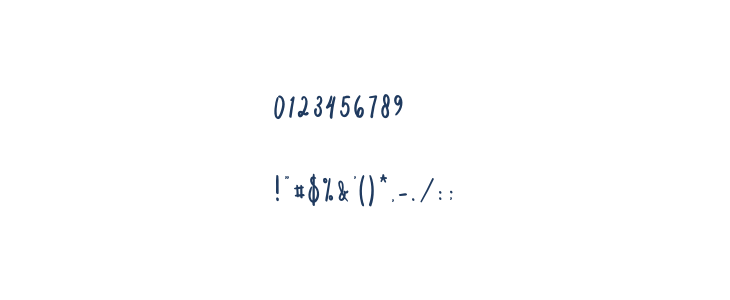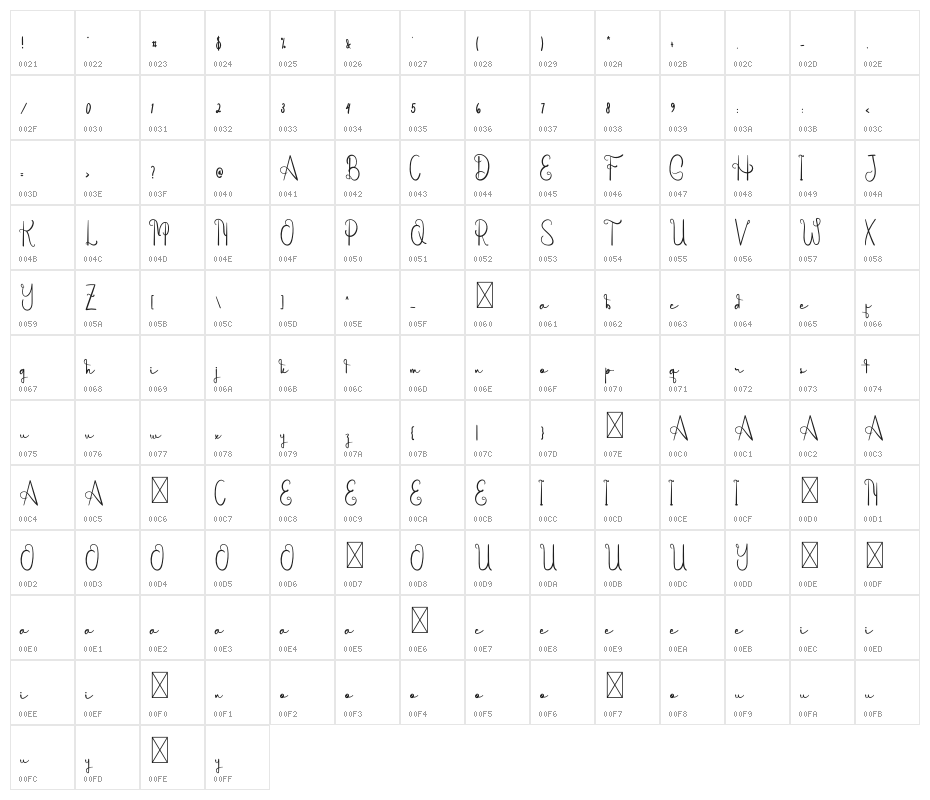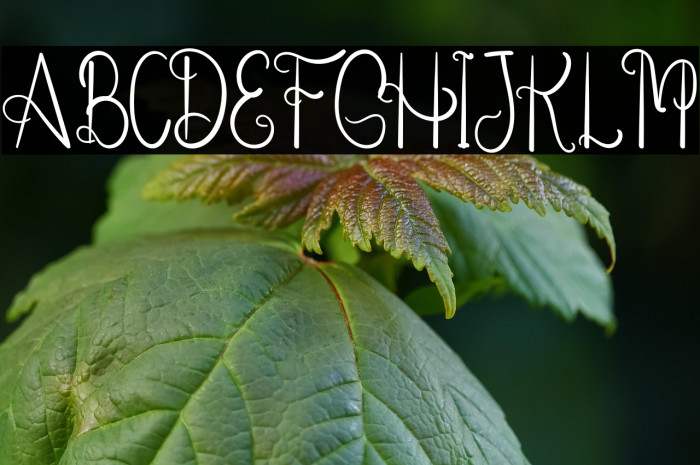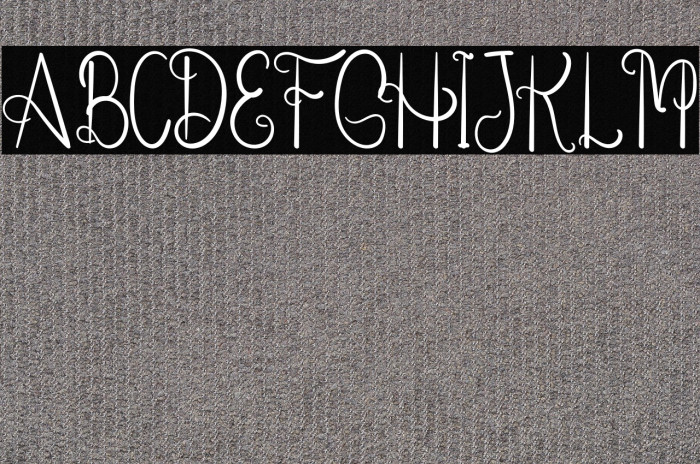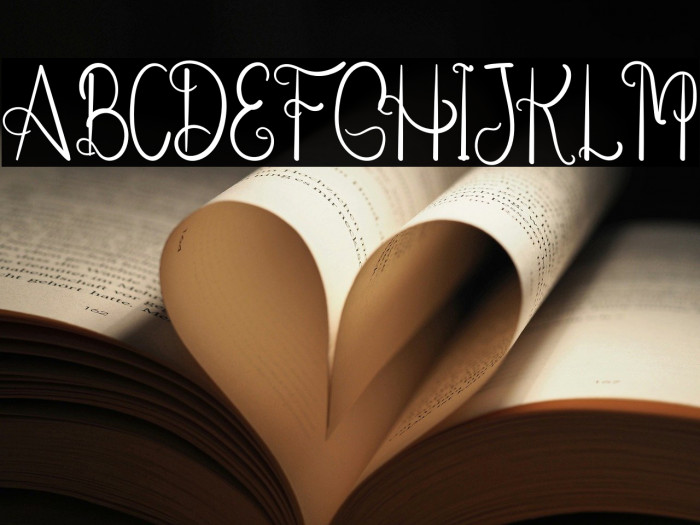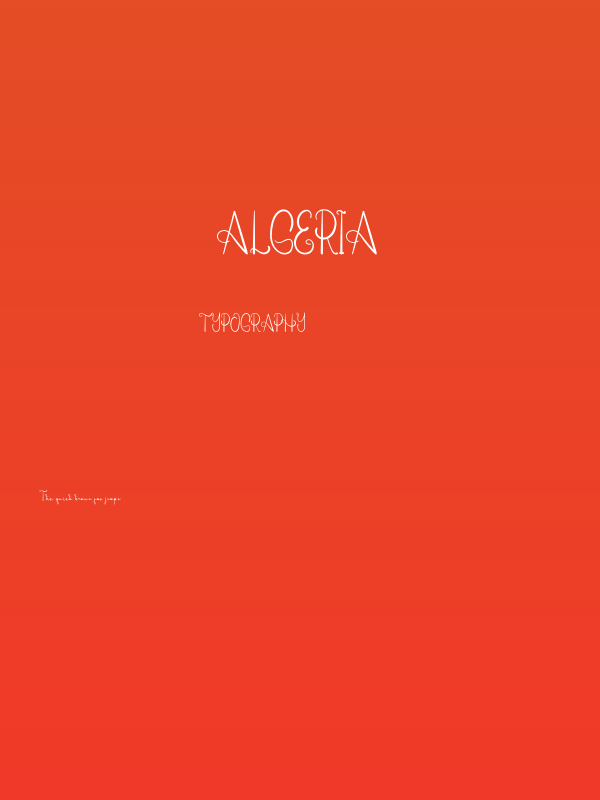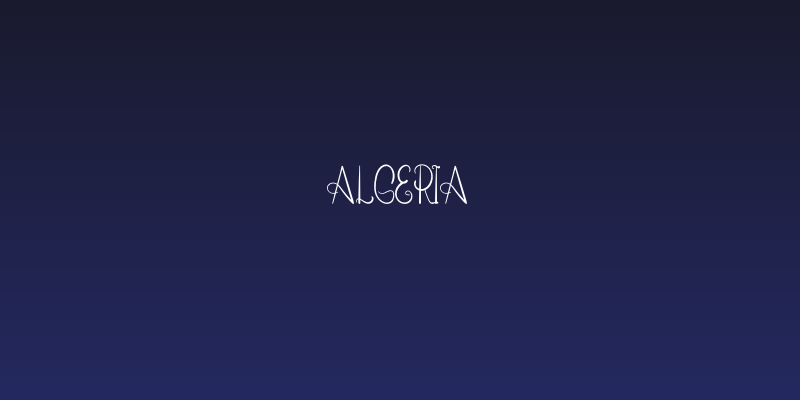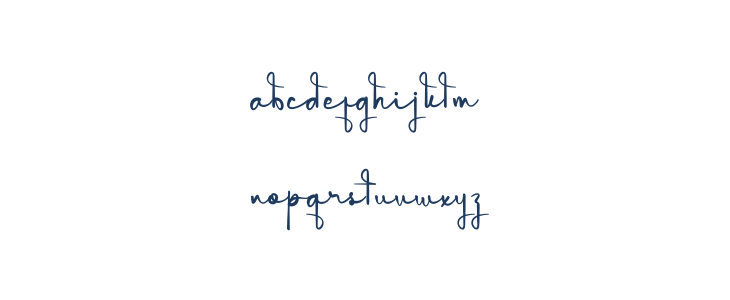
Algeria Font
Algeria Description
This font features an elegant, whimsical style with a playful yet sophisticated flair. The uppercase letters are characterized by their tall, slender forms and intricate loops, giving them a decorative appearance. The lowercase letters maintain a similar style, with a more cursive and flowing design. The numbers are consistent with the overall aesthetic, offering a unique and artistic touch. Special characters are creatively integrated, enhancing the font's decorative appeal. This font is ideal for projects that require a touch of elegance and creativity.